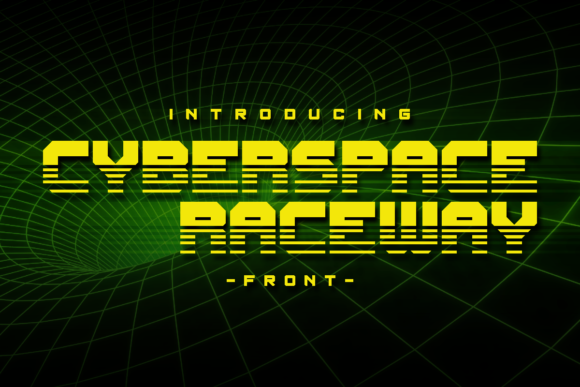
Cyberspace Raceway Font: A Futuristic Display Font for Modern Designs
The world of typography has witnessed a significant transformation over the years, with the emergence of various font styles that cater to diverse design needs. One such font that has gained popularity among designers and enthusiasts alike is the Cyberspace Raceway Font. This futuristic display font has been making waves in the design community, and for good reason. In this article, we’ll delve into the features, benefits, and uses of the Cyberspace Raceway Font, and explore how it can elevate your designs to the next level.
What is Cyberspace Raceway Font?
The Cyberspace Raceway Font is a modern, sans-serif display font designed to evoke a sense of speed, technology, and innovation. Its sleek and futuristic design makes it perfect for projects that require a bold, attention-grabbing look. The font features clean lines, sharp edges, and a dynamic structure that gives it a unique and captivating appearance.
Key Features of Cyberspace Raceway Font
- Unique and Futuristic Design: The Cyberspace Raceway Font boasts a distinctive design that sets it apart from other fonts. Its futuristic look makes it ideal for projects that require a modern and cutting-edge aesthetic.
- Highly Legible: Despite its bold and futuristic design, the Cyberspace Raceway Font remains highly legible, even at smaller font sizes. This makes it suitable for use in a variety of applications, from headings and titles to body text.
- Versatile: The Cyberspace Raceway Font is a versatile font that can be used for a wide range of design projects, including logos, branding, posters, advertisements, and more.
The Cyberspace Raceway is a Futuristic Display Font which can be used for Various Designs
The Cyberspace Raceway Font is a highly versatile font that can be used for a wide range of design projects. Its futuristic design makes it perfect for projects that require a bold and attention-grabbing look, such as:
- Logos and Branding: The Cyberspace Raceway Font is ideal for creating logos and branding materials that require a modern and futuristic look.
- Posters and Advertisements: The font’s bold and attention-grabbing design makes it perfect for use in posters, advertisements, and other marketing materials.
- Web Design: The Cyberspace Raceway Font can be used to create stunning website headers, titles, and other design elements that require a modern and futuristic look.
- Video Games and Animations: The font’s dynamic and futuristic design makes it suitable for use in video games, animations, and other digital media projects.
Benefits of Using Cyberspace Raceway Font
The Cyberspace Raceway Font offers a range of benefits for designers and enthusiasts, including:
- Improved Readability: The font’s highly legible design ensures that your text is easy to read, even at smaller font sizes.
- Increased Versatility: The Cyberspace Raceway Font can be used for a wide range of design projects, making it a valuable addition to your font library.
- Enhanced Creativity: The font’s unique and futuristic design can help inspire your creativity and take your designs to the next level.
The Cyberspace Raceway Font is a highly versatile and futuristic display font that’s perfect for modern designs. Its unique and attention-grabbing design makes it ideal for a wide range of projects, from logos and branding to posters and advertisements. With its highly legible design, ease of use, and range of formats, the Cyberspace Raceway Font is a valuable addition to any designer’s font library.
- What is the Cyberspace Raceway Font?: The Cyberspace Raceway Font is a modern, sans-serif display font designed to evoke a sense of speed, technology, and innovation.